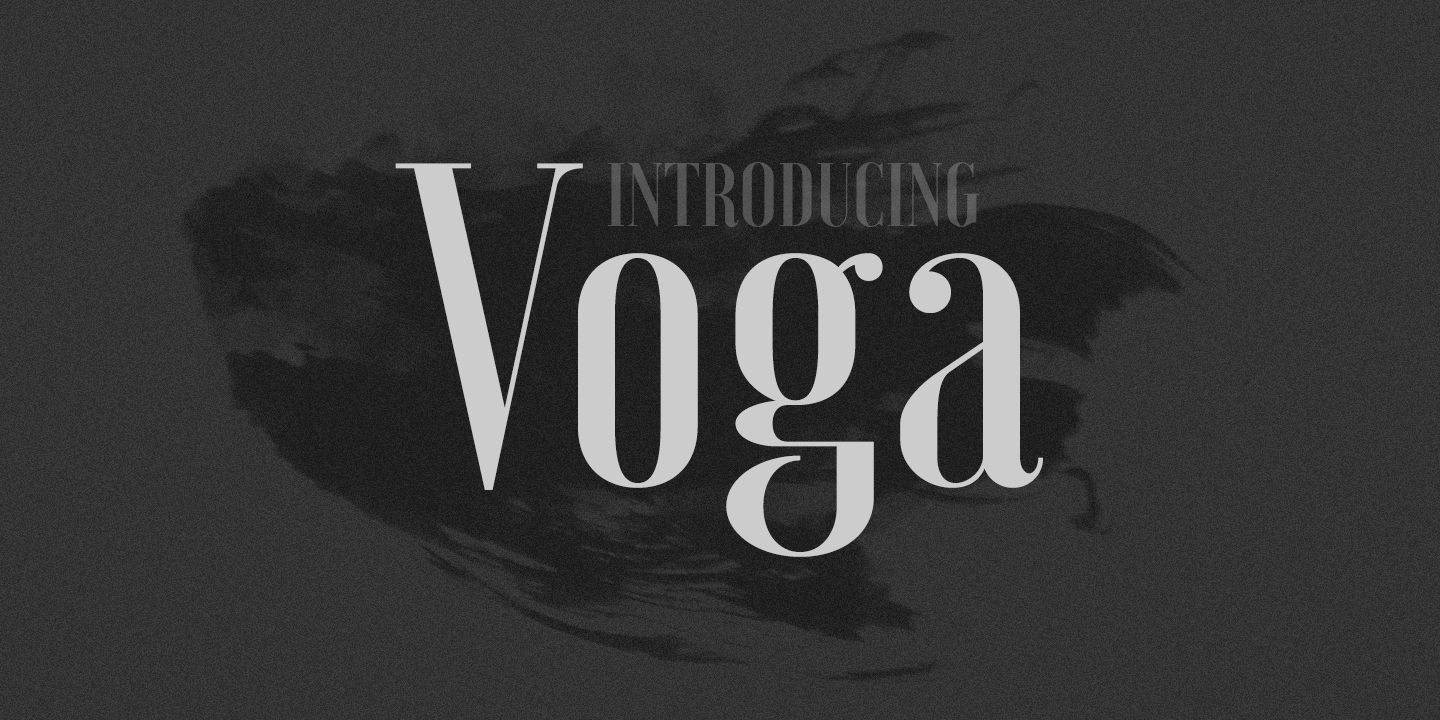
Looking to add a touch of modern elegance to your designs? Voga Font Free Download is the perfect choice to bring a sleek, contemporary vibe to your creative projects. With its clean lines and stylish curves, Voga is ideal for branding, headlines, packaging, and digital content that demands a fresh, professional look.
From websites to print materials, Voga Font Free Download elevates your work with its unique style and balanced structure. Its modern aesthetic ensures your message stands out with confidence and clarity, making it a favorite among creative professionals.